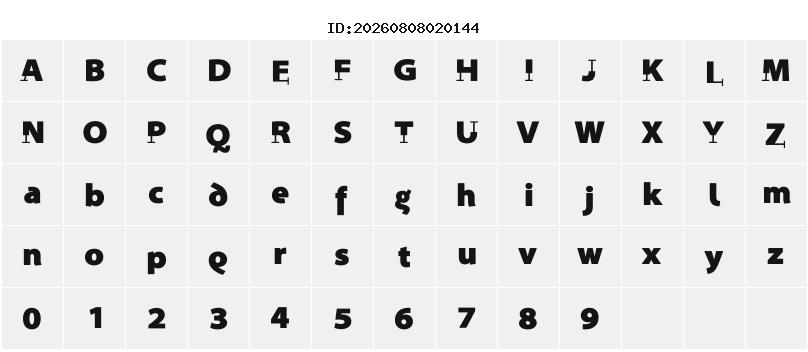
Prothesis Preview
• Font Name: Prothesis
About Prothesis.ttf
Prothesis.ttf is a modern, elegant sans-serif font designed for ultimate readability and visual harmony. Perfect for branding, headlines, web design, and print materials.